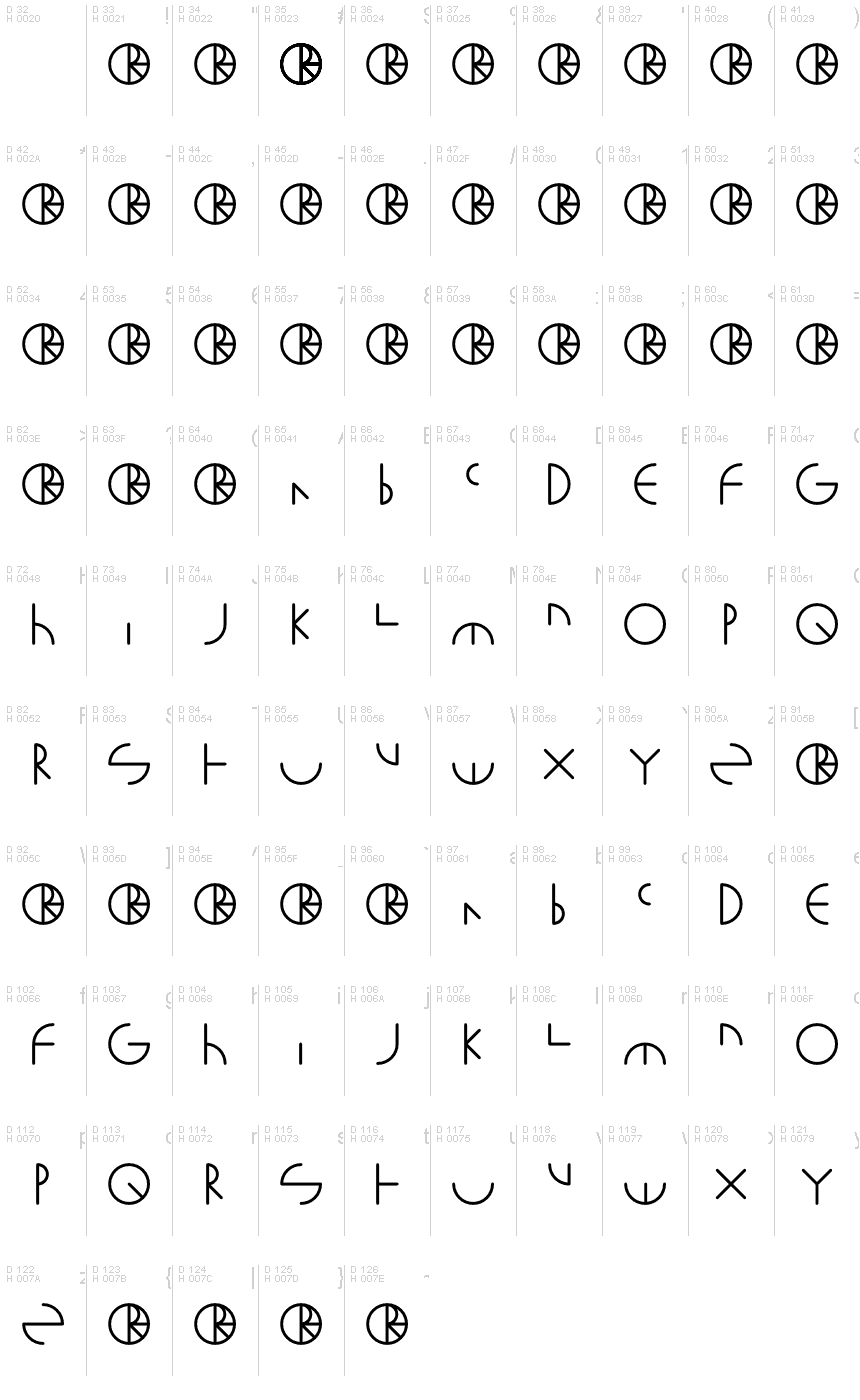
Polaroid Regular
Polaroid, designed by crusher, is a display font with a light weight that gives it a playful and airy feel. Its clean lines and rounded edges make it perfect for projects that require a whimsical touch, such as children's books or greeting cards. The Polaroid font is versatile enough to also be used for retro-inspired designs, vintage posters, and even social media graphics. Give your next project a lighthearted vibe with the Polaroid font!